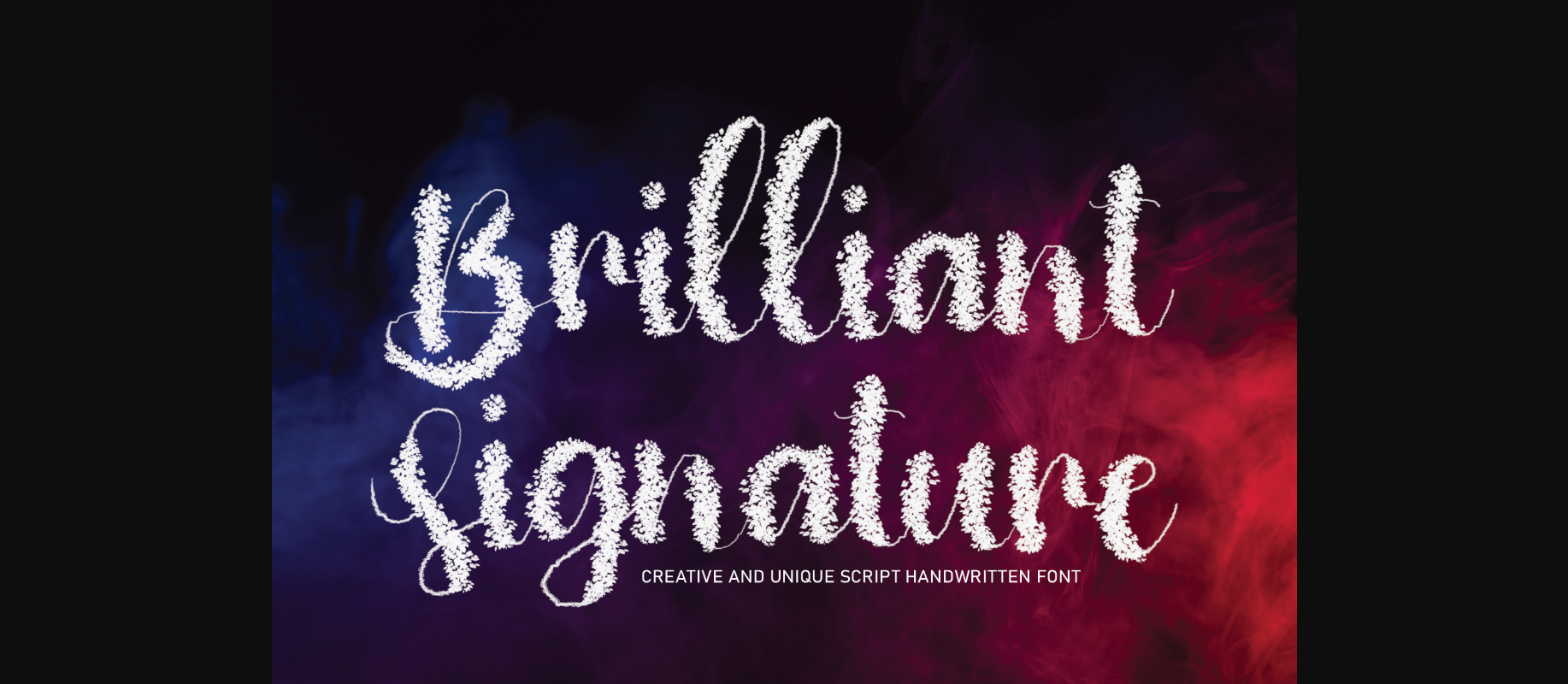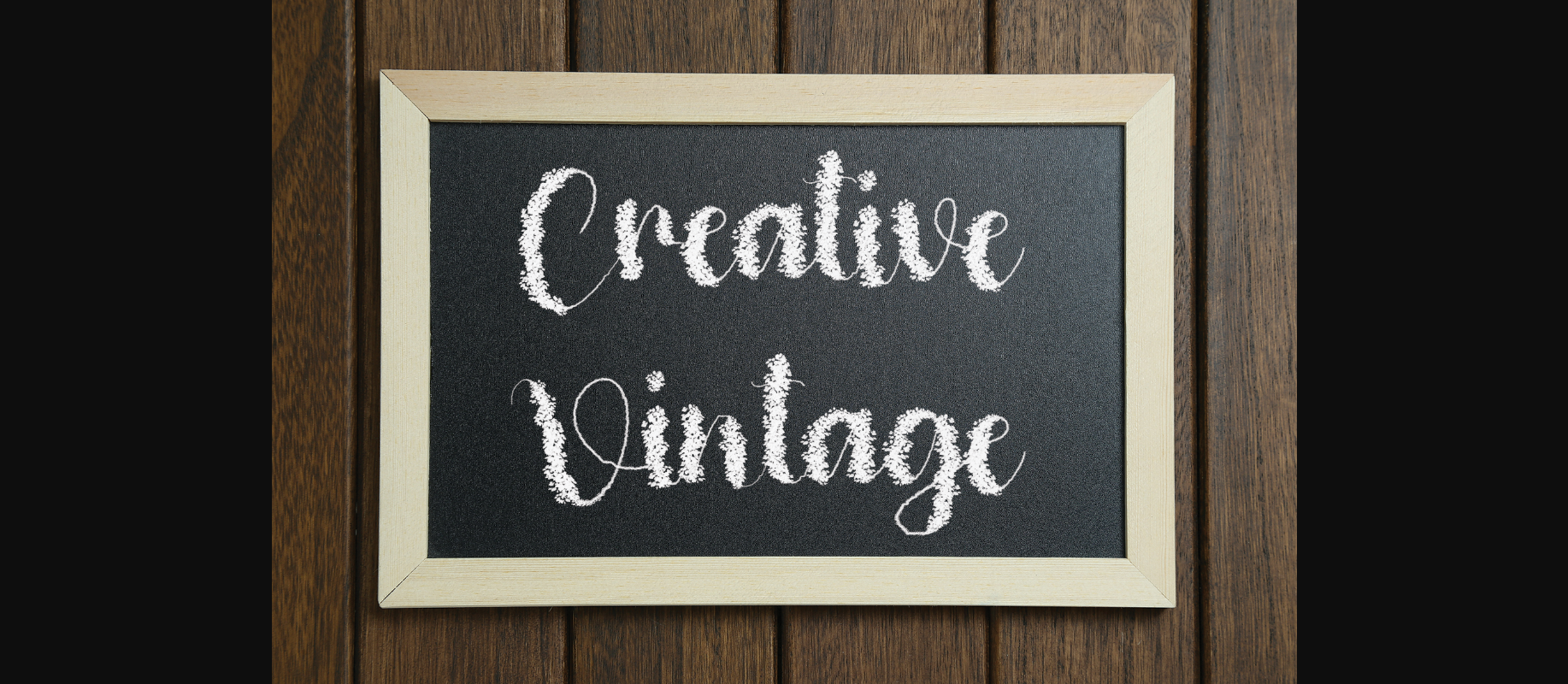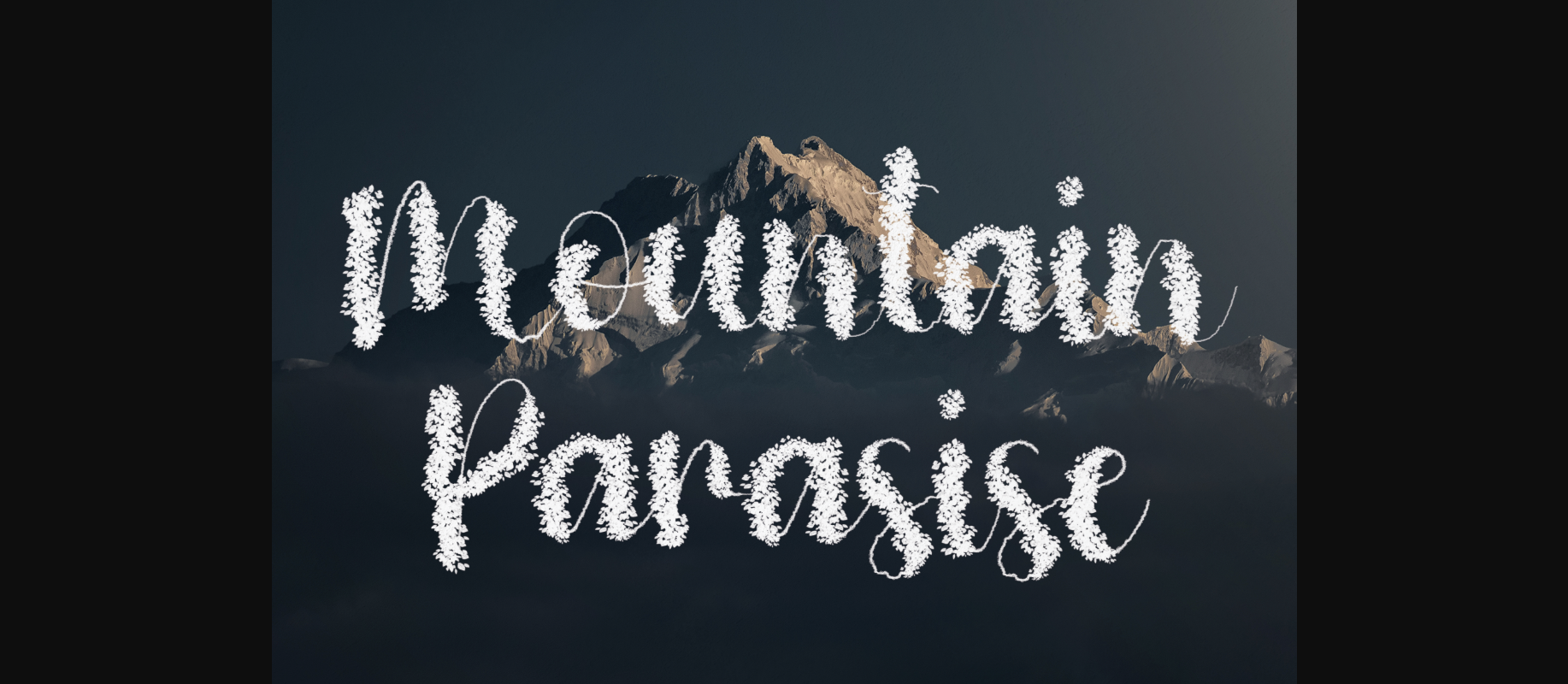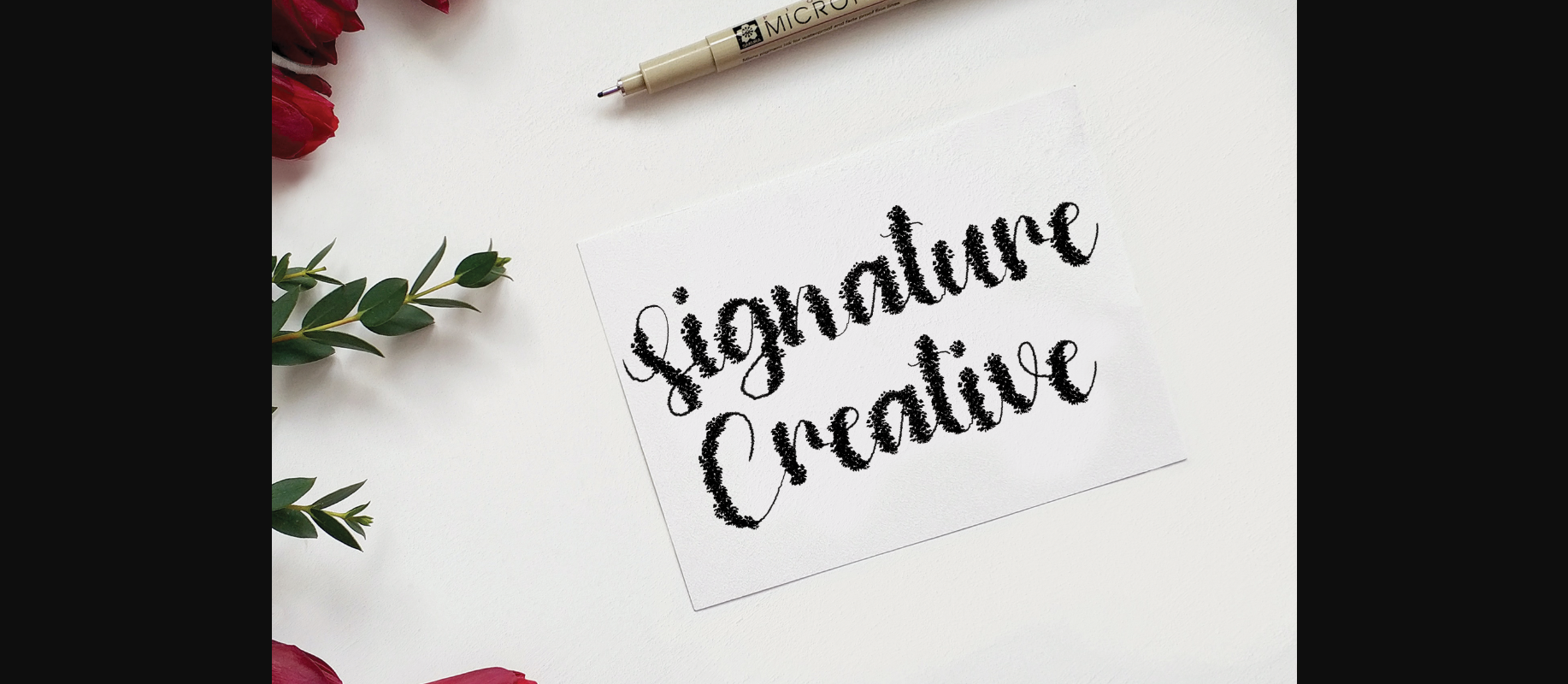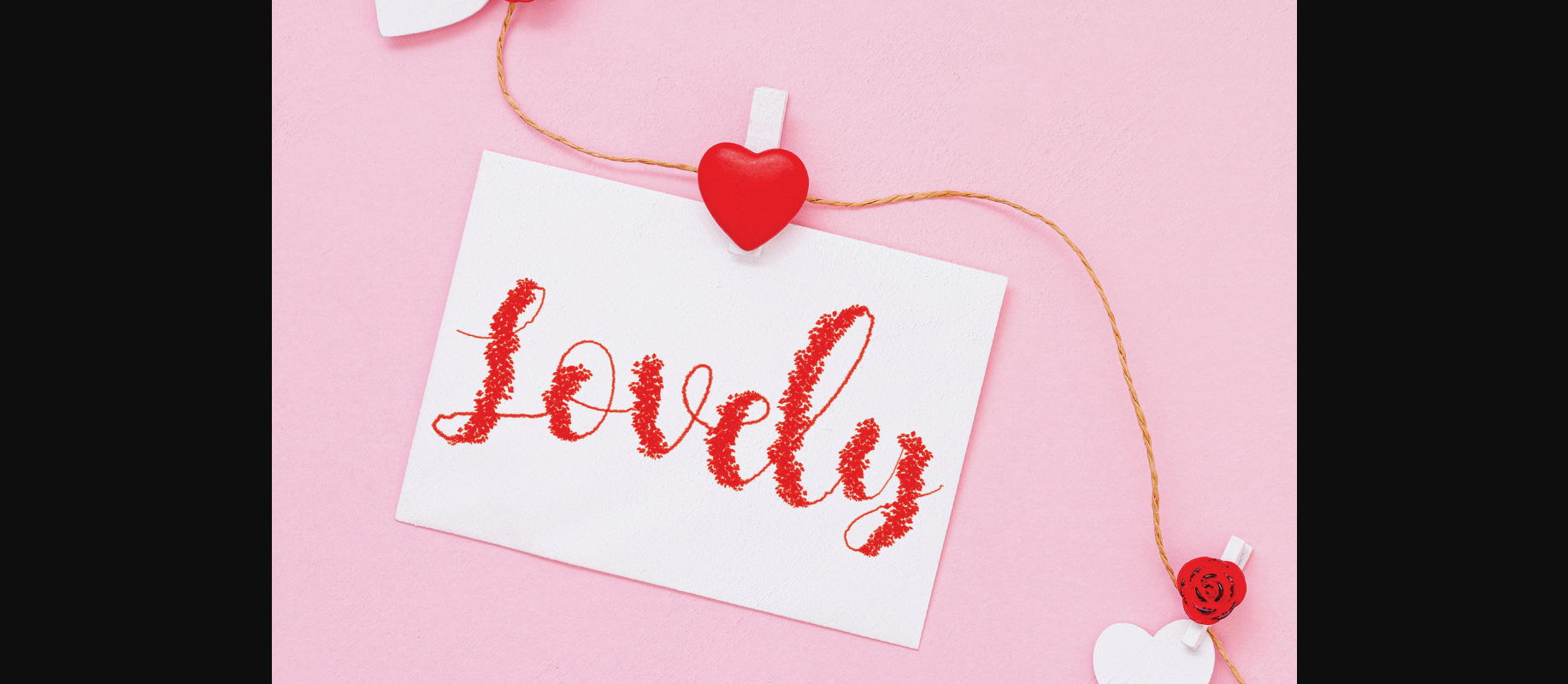
Brilliant Signature Font
About Brilliant Signature Font
Brilliant Signature is a gorgeous decorative font, featuring delicate flowers on each character. It is suitable for any projects such as: logos, branding projects, label, photography, watermark, special events, and all your other lovely projects that need a beautiful script taste.